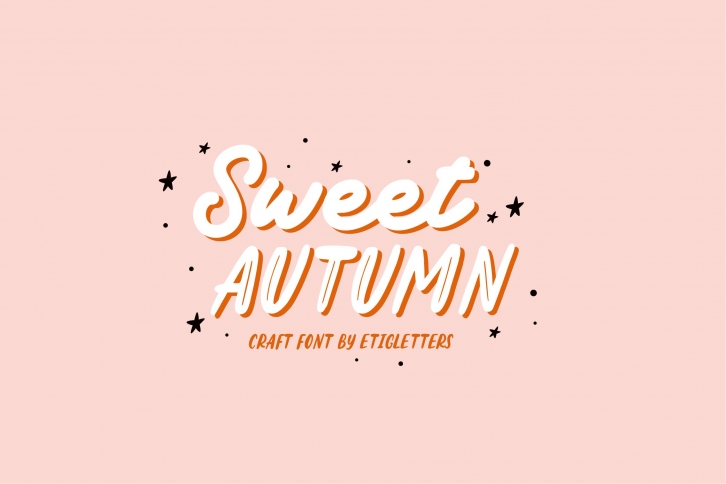
Sweet Autumn Duo is a gorgeous font that was realeased on September 7, 2022. The font can be used in many style contexts and design environments. Perfect for invitations, magazines, websites, logos, and more! It was designed by Etigletters and the file size is 9.48 MB. Thanks for checking out this font!